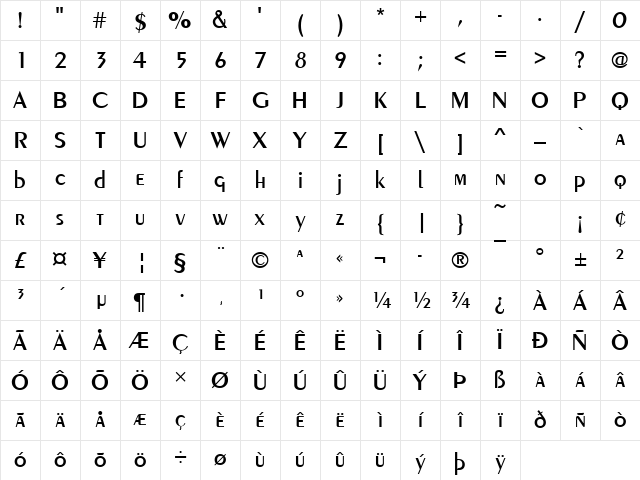
PeignotDMed Regular
Design Context for PeignotDMed
PeignotDMed is a composed and adaptable typeface that performs quietly and consistently across a wide range of design contexts.